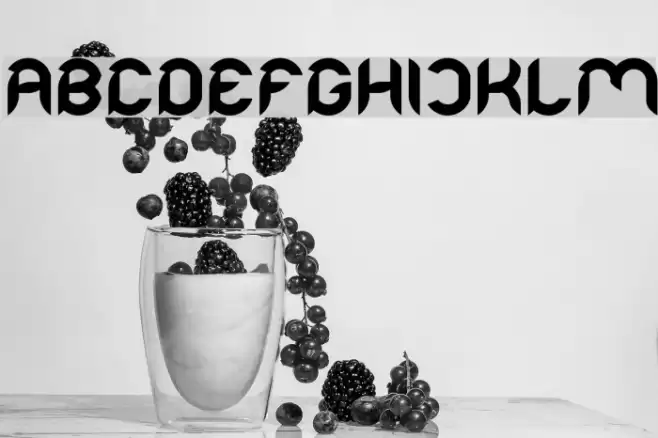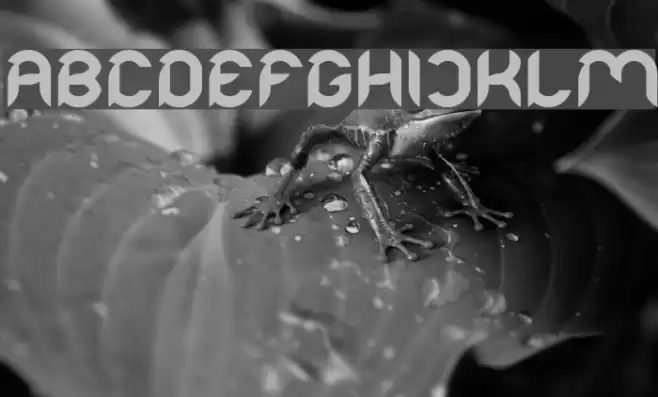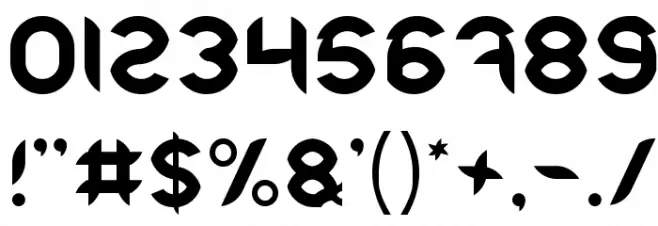
Intan Putri Pratiwi-Light Font
Intan Putri Pratiwi-Light Description
This font features a bold, geometric design with sharp angles and a futuristic aesthetic. The characters are crafted with a unique blend of curves and straight lines, creating a dynamic and modern look. The uppercase and lowercase letters maintain a consistent style, with a strong emphasis on symmetry and balance. The numbers and special characters follow the same design principles, ensuring a cohesive appearance across all glyphs. The font's distinct style makes it suitable for projects that require a contemporary and edgy feel.
A bold, geometric font with a futuristic and modern design from Uncategorized fonts.
- Proposed Projects: Ideal for branding, posters, video game titles, and sci-fi themed projects.